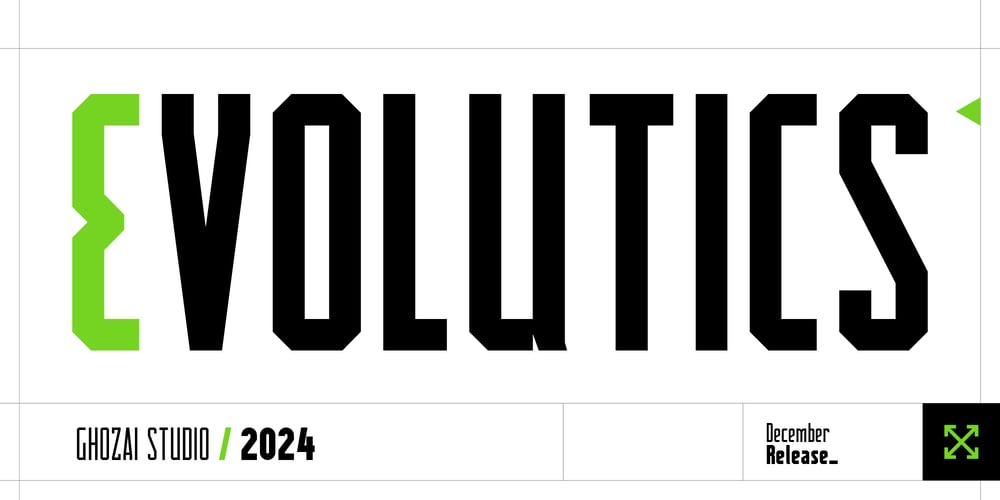
Evolutics
Evolutics font
Evolutics Font Family was designed by Manzur Ghozaali and published by Ghozai Studio. Evolutics contains 16 styles and family package options. Evolutics is a striking sans-serif font inspired by geometric shapes, crafted to deliver a polished look and a vibrant personality for all your design projects. This adaptable font shines in many applications, making it perfect for sport, action, futuristic, robotic, and mechanical themes. Whether creating posters, headlines, logos, or branding materials, Evolutics elevates your designs with its unique and powerful presence